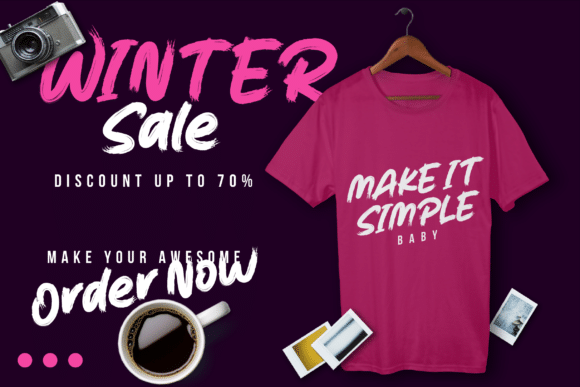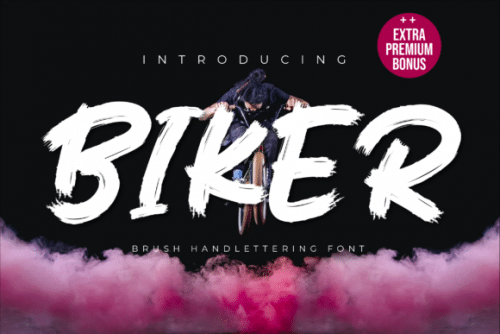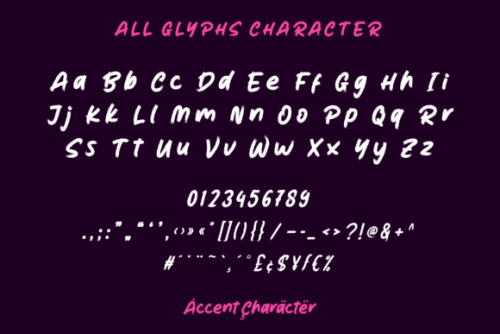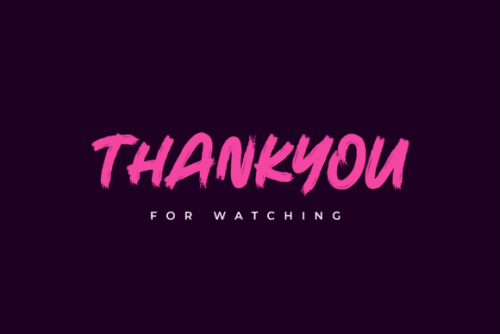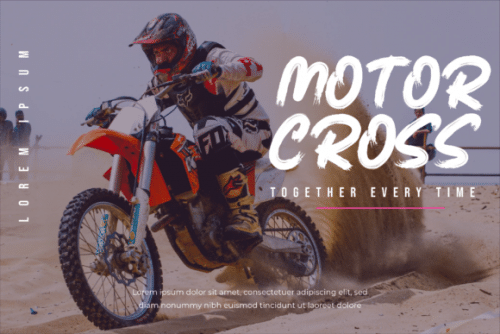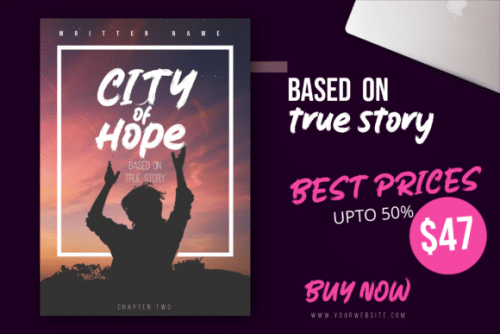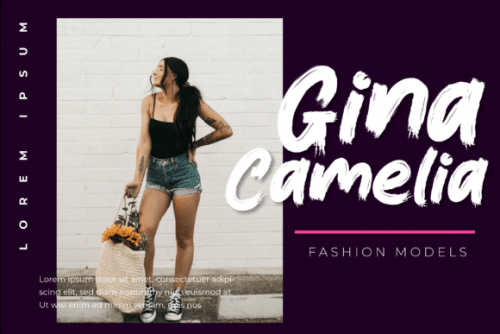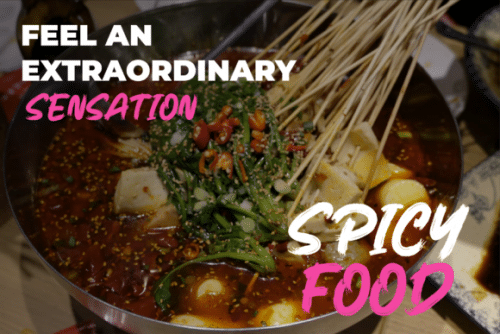
Biker is a free-themed, hand-drawn display font with a neat selection of brushes. This font is defined by a captivating typographic harmony, perfect for a wide variety of designs. Add it to each of your creative ideas and notice how it makes them stand out!
- Designer: Productype